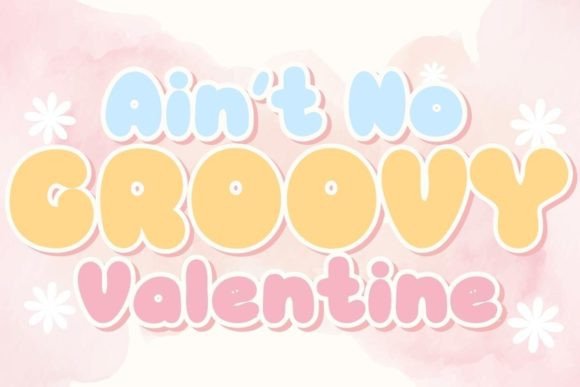
Embrace the love and joy of Valentine's Day with "Ain't No Groovy Valentine," an enchanting, bold, and chunky font that radiates playfulness and a whimsical aura. Its curvaceous letters, rendered with confident strokes, are like cupid's arrows piercing hearts with delight. This font is designed to capture the essence of Valentine's Day, inviting you to create heartfelt designs that exude warmth, affection, and a touch of mischievous charm.
Transport yourself to a world of love and laughter with "Ain't No Groovy Valentine." Let the rounded edges of this font envelop your designs in a playful embrace that says, "love is in the air!" Its bold presence is sure to make your messages and designs stand out, capturing the attention of anyone who encounters them. Whether you're creating Valentine's Day cards, love letters, social media posts, or any other creative project, this font will infuse your work with an infectious sense of joy and lightheartedness.
With its effortless charm and versatile nature, "Ain't No Groovy Valentine" is the perfect font for adding a touch of romance and whimsy to any fashion-forward project. From clothing designs to accessories, packaging to promotional materials, this font will elevate your creations with its stylish flair. Its bold strokes and playful curves will make your designs pop, attracting the eyes of potential customers with its irresistible appeal. Unleash your creativity and let "Ain't No Groovy Valentine" be your muse, transforming your fashion ventures into masterpieces of love and fun.